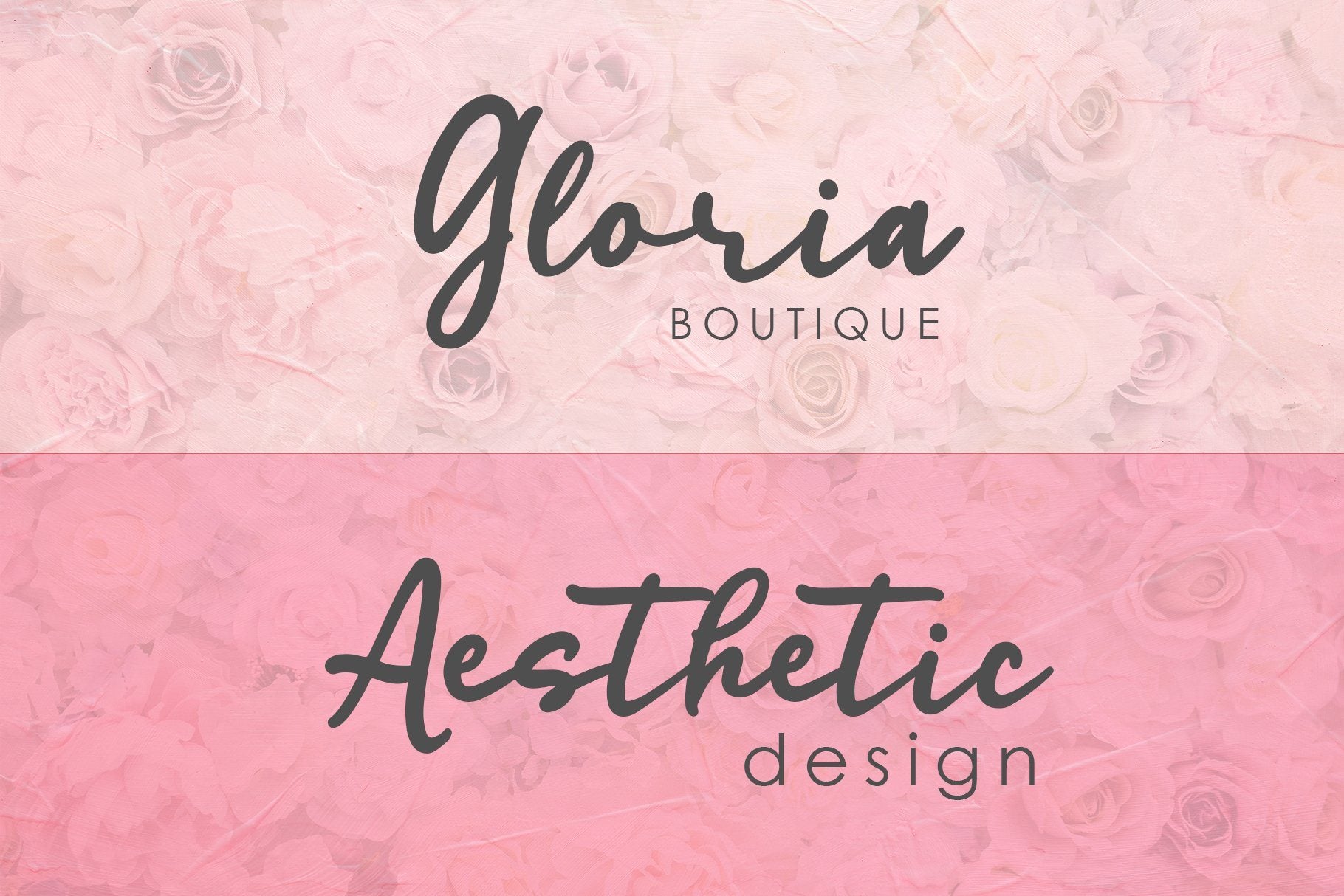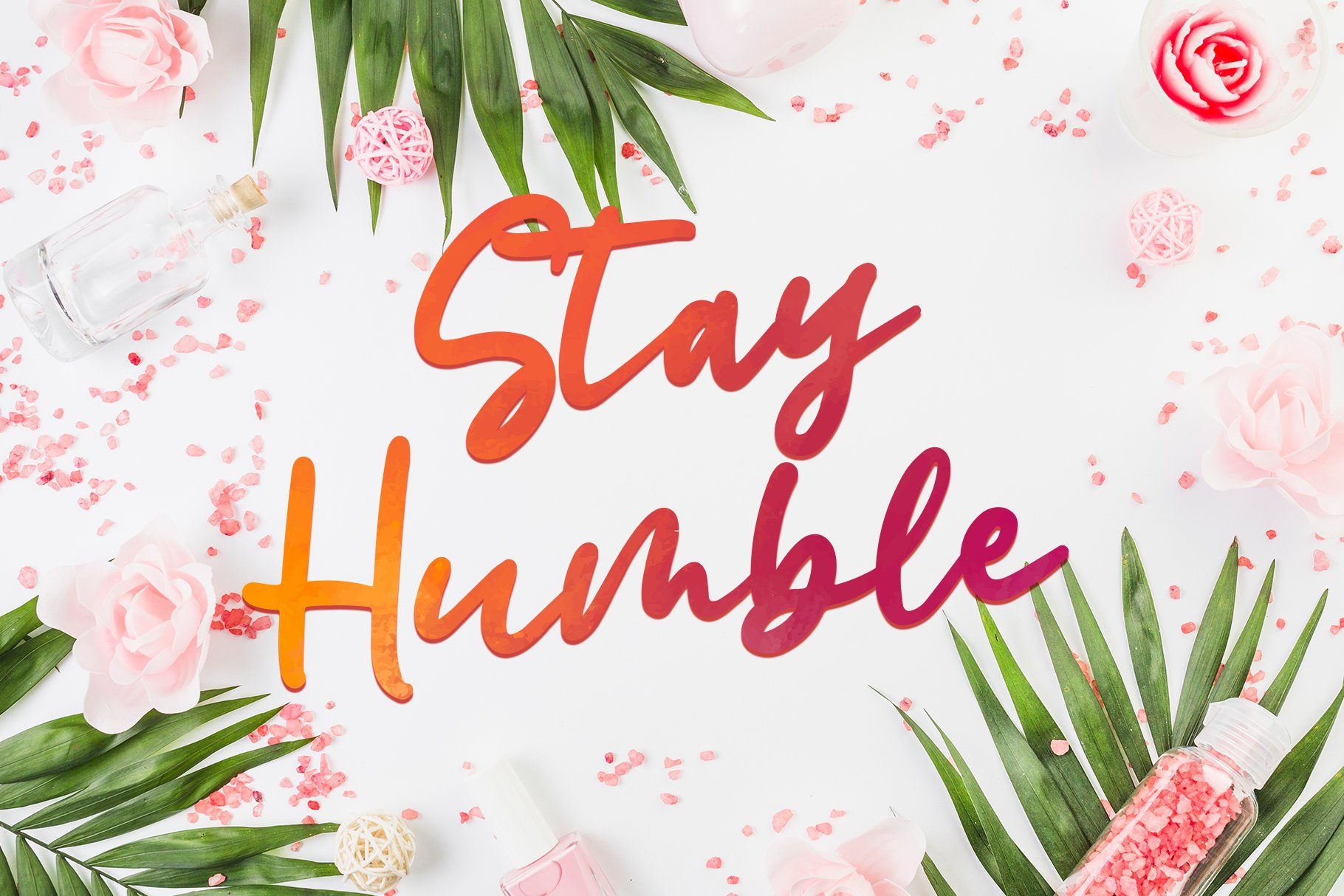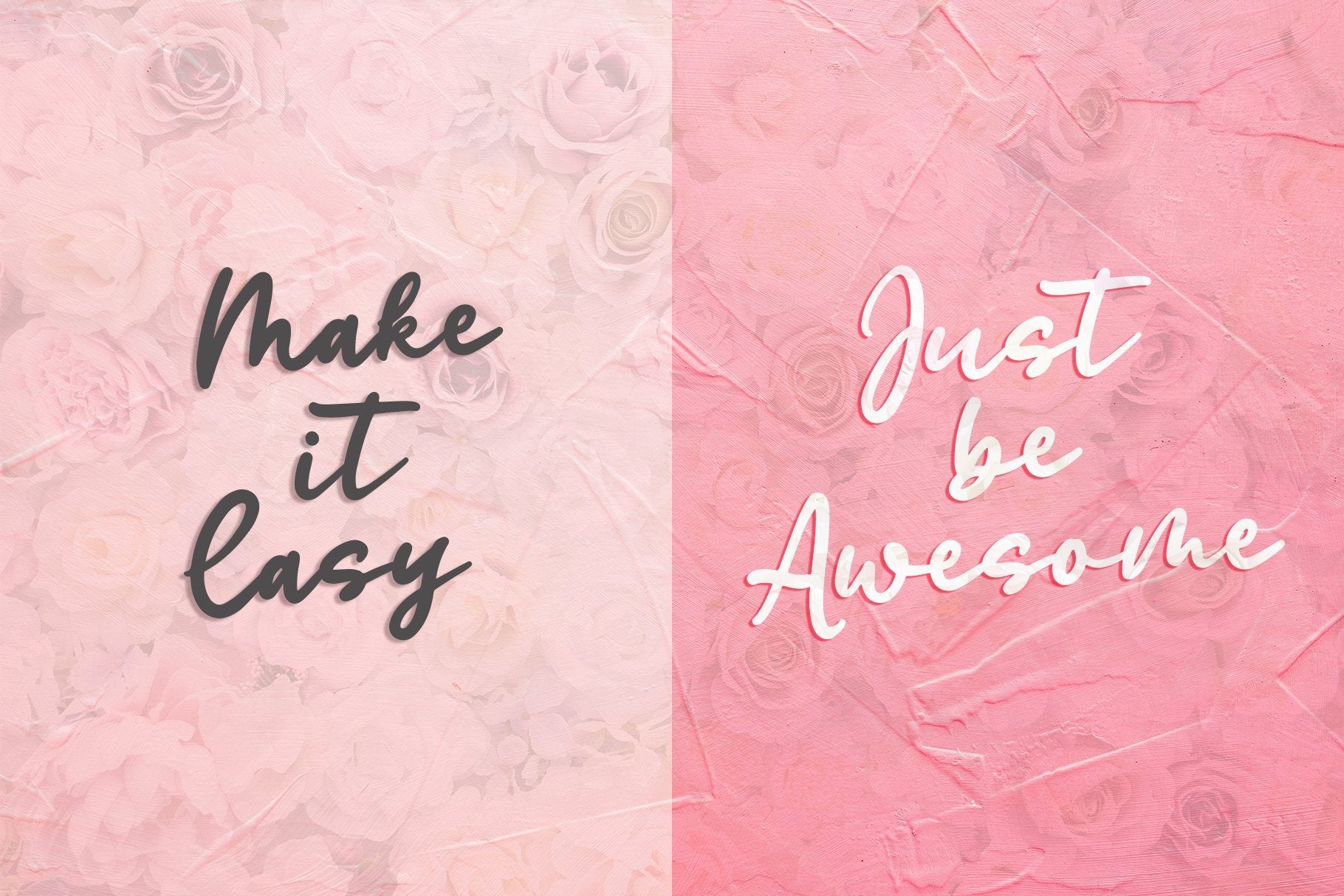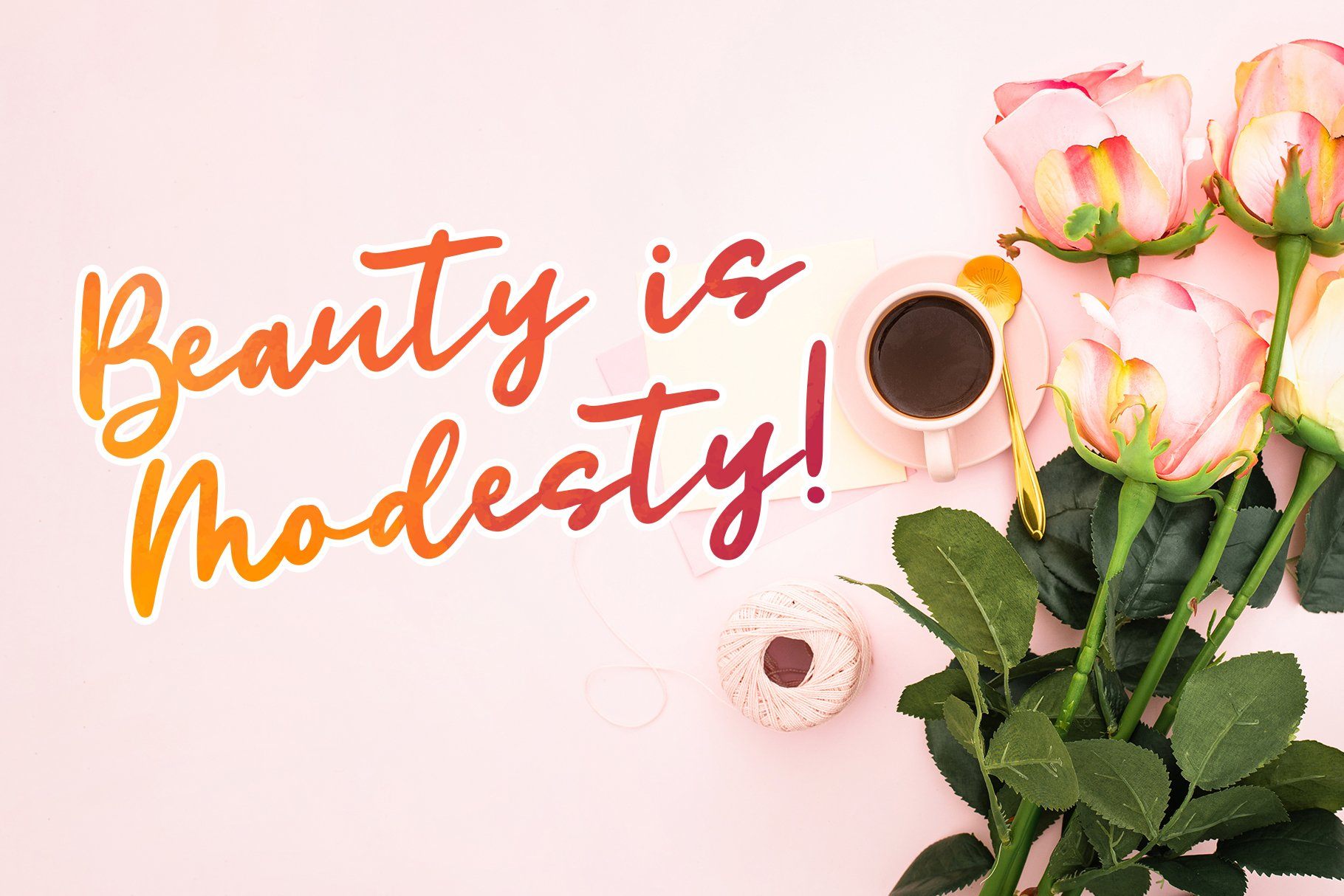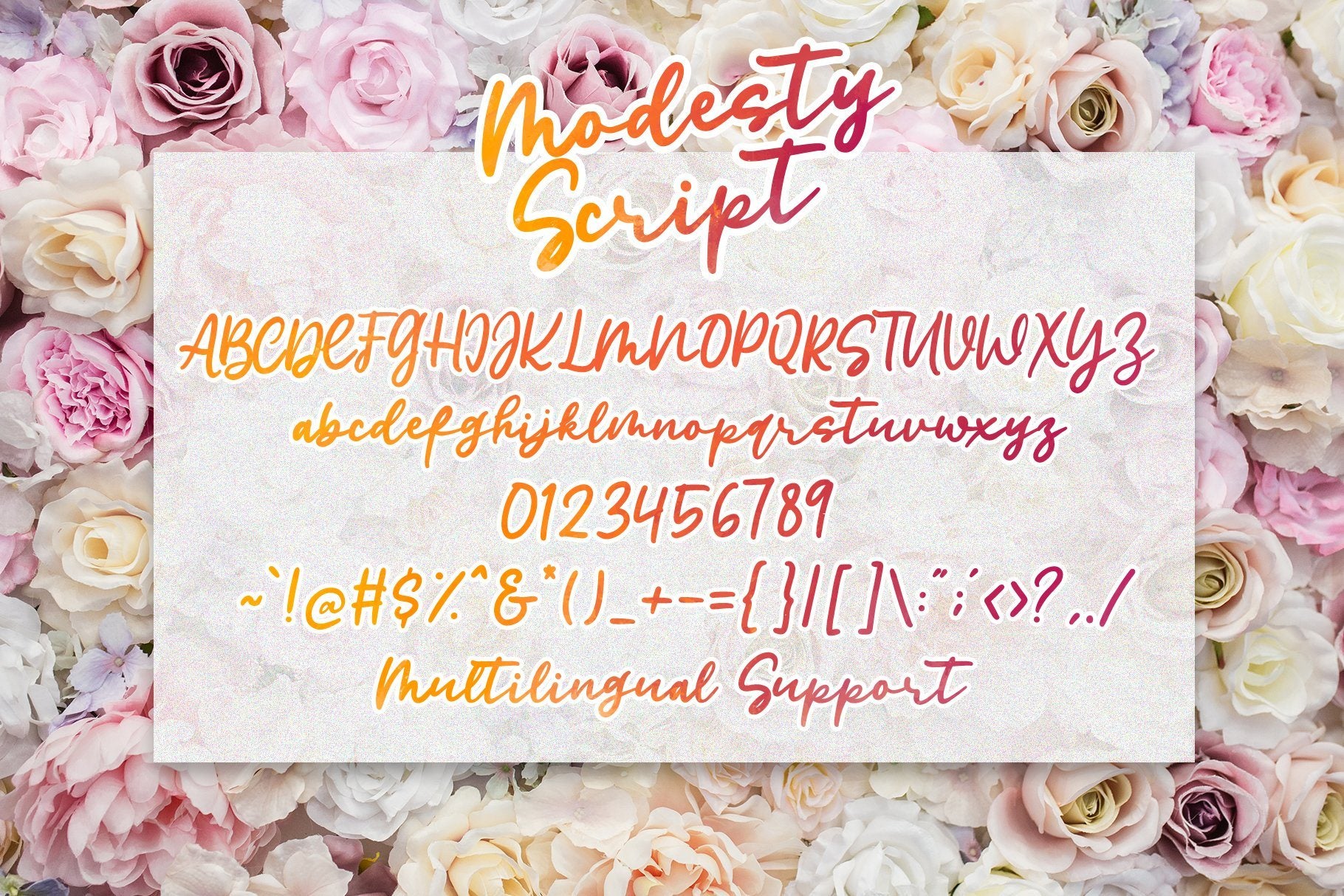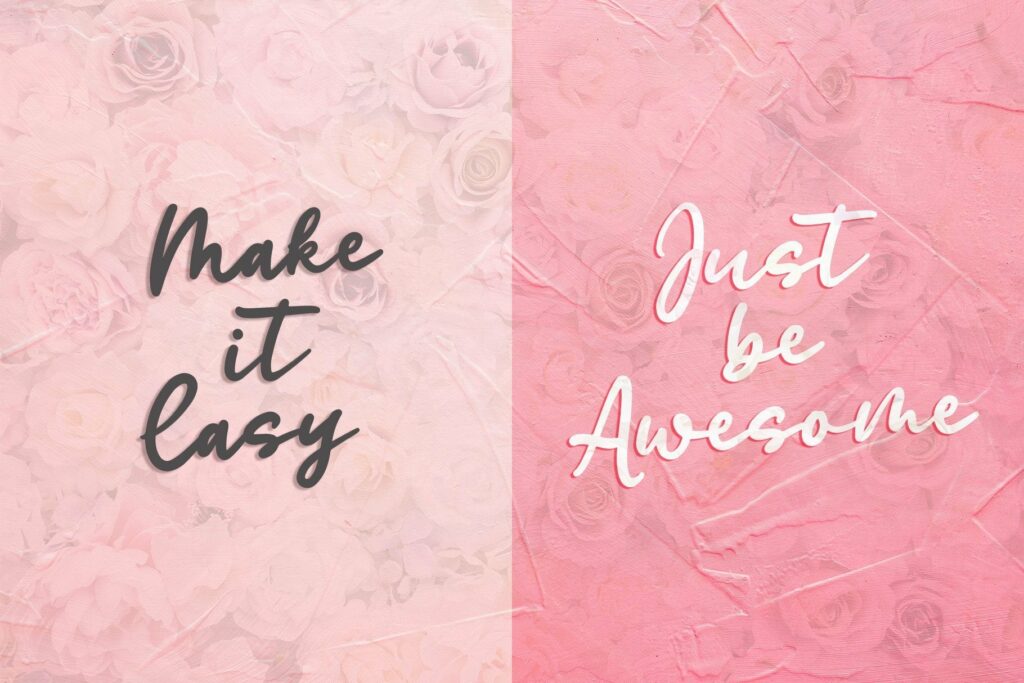
Modesty Script – Handwritten Font
About Modesty Script – Handwritten Font
Introducing, Modesty Script-Handwritten Font. It’s a warm, simple and romantic handwritten crafty font, perfect to beautify your design. Features: – Uppercase – Lowercase – Numeric – Symbols – Multilingual Support Files : – Modesty Script OTF, TTF, WOFF Thanks for every support, hope you like it!